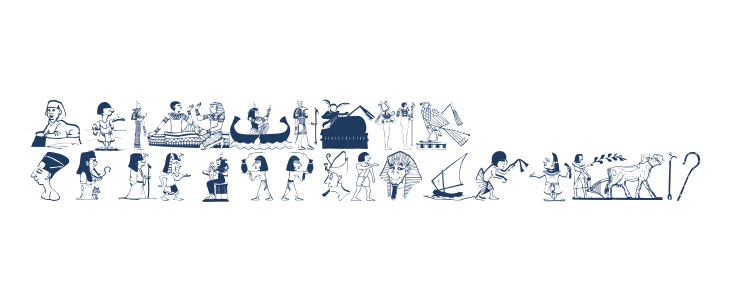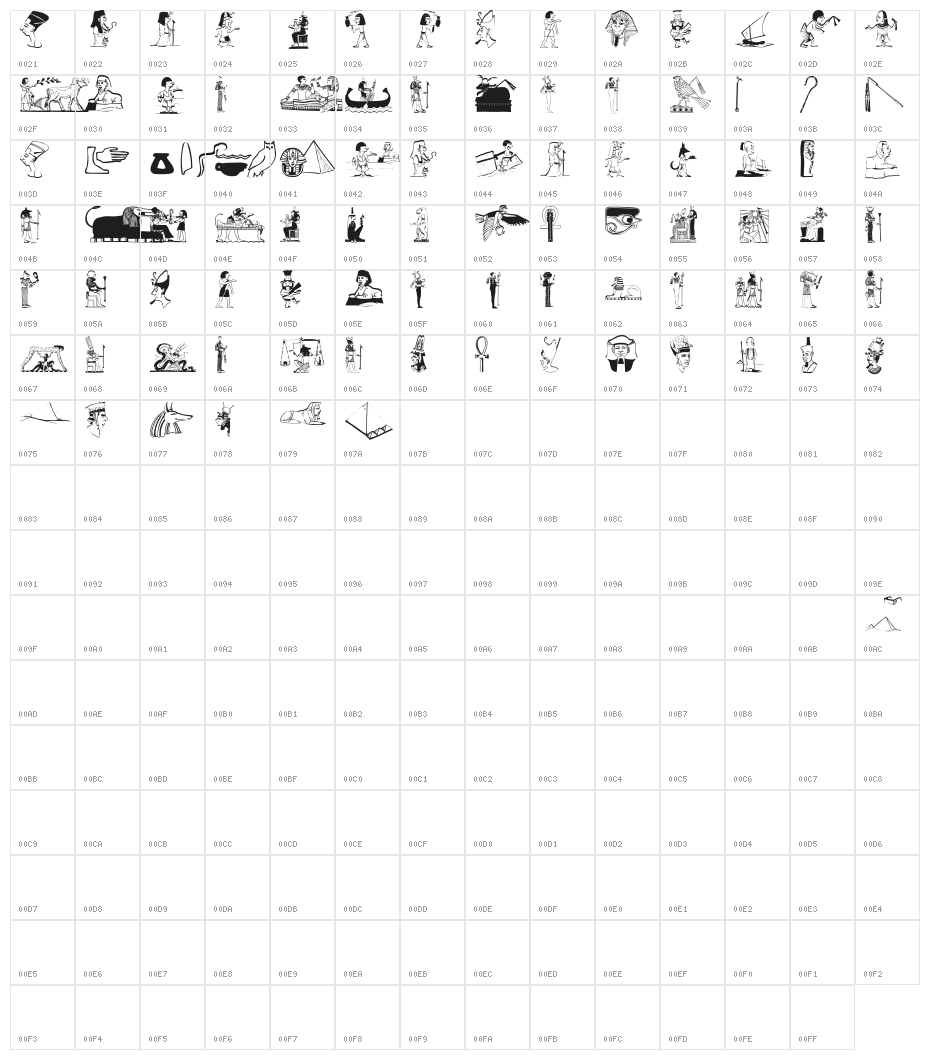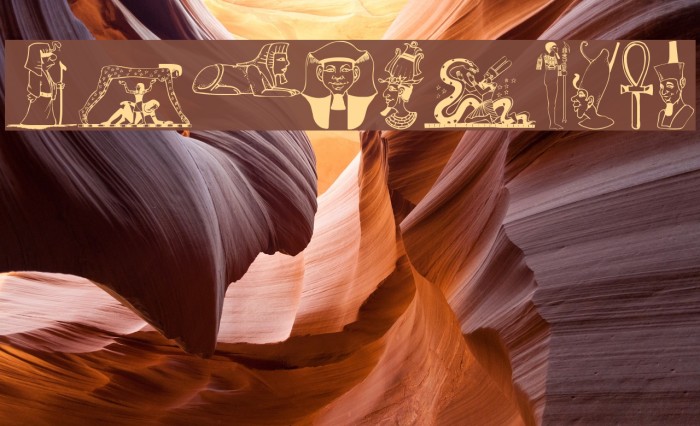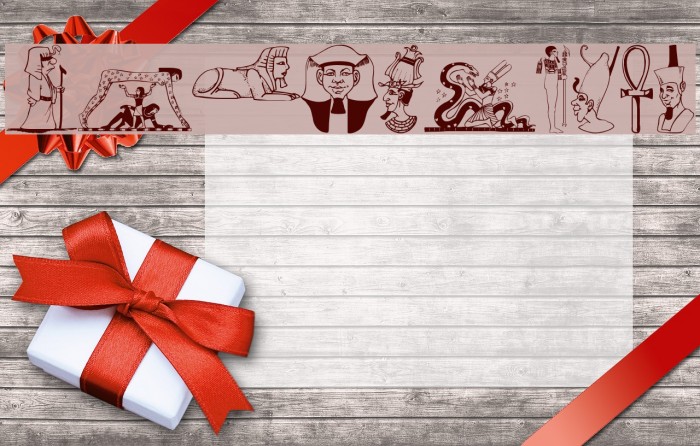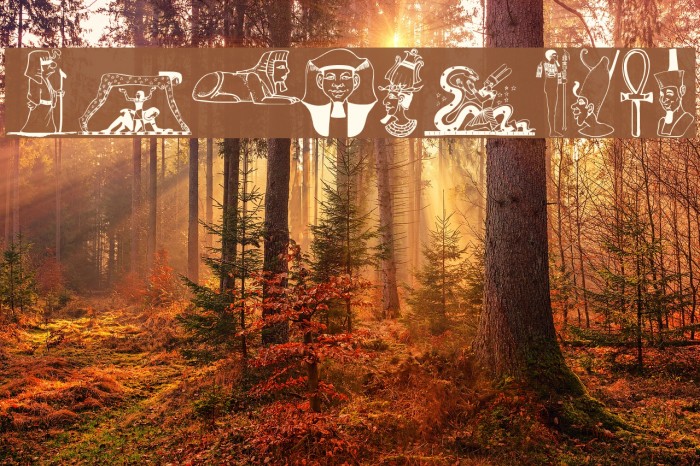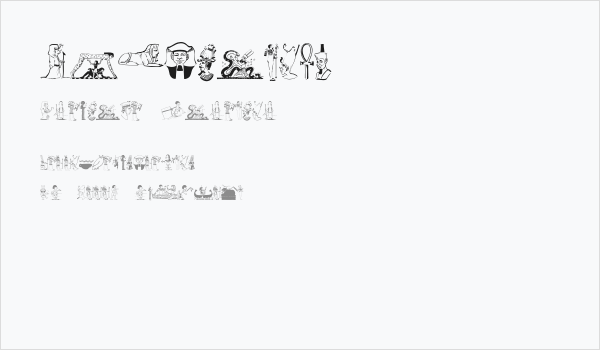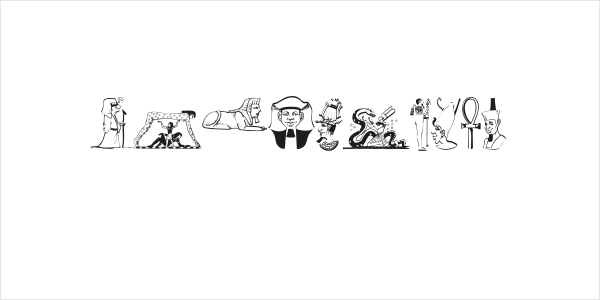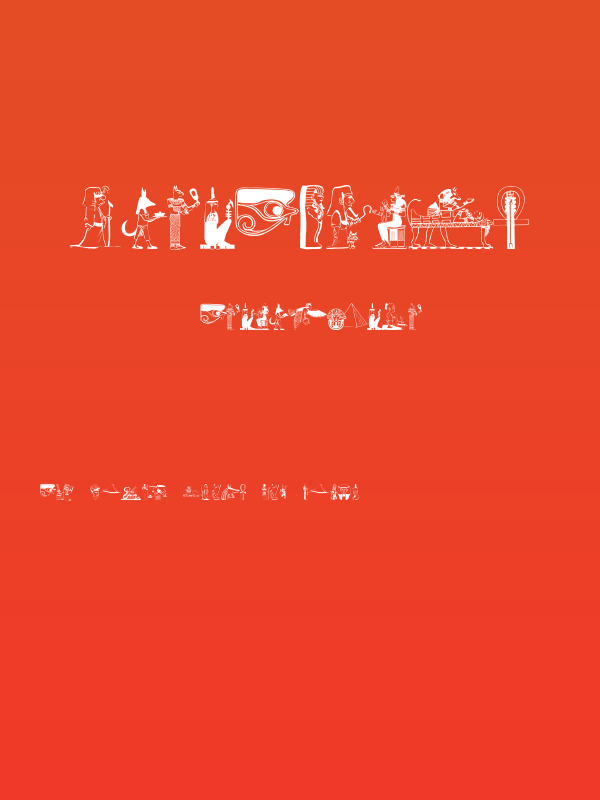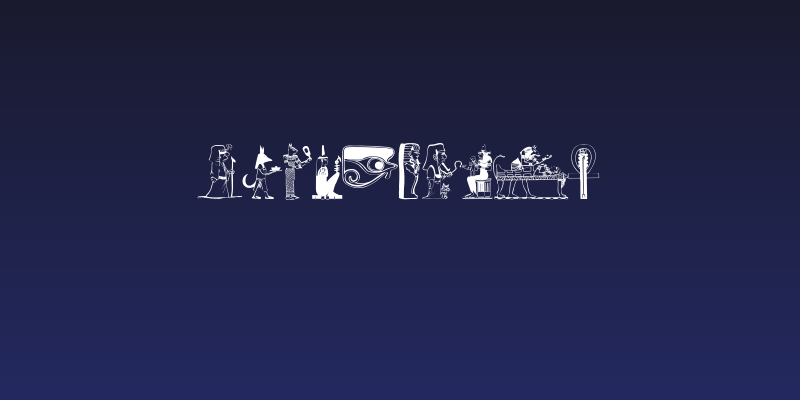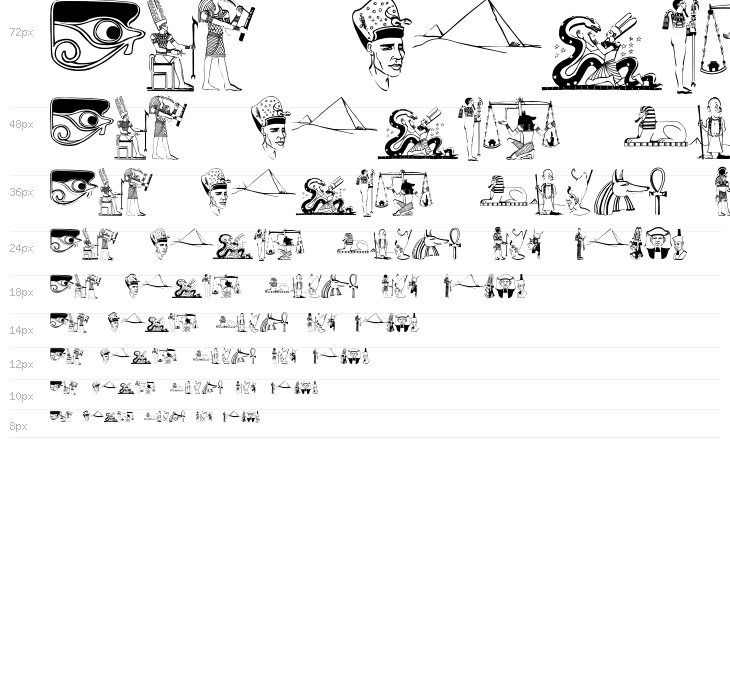
Egypticons Font
Egypticons Description
This is not a traditional font but rather a collection of illustrative icons inspired by ancient Egyptian art and hieroglyphs. Each character is a detailed depiction of Egyptian symbols, gods, and daily life scenes, rendered in a cartoonish style. The icons include pharaohs, pyramids, the Sphinx, and various deities, all intricately designed to capture the essence of ancient Egyptian culture. The style is decorative and playful, making it suitable for themed projects that require a historical or cultural touch. The icons are monochromatic, emphasizing line work and form over color.
Use CaseLogos, Illustrations, Themed Designs
Proposed ProjectsIdeal for educational materials, themed event decorations, cultural exhibitions, and historical presentations.